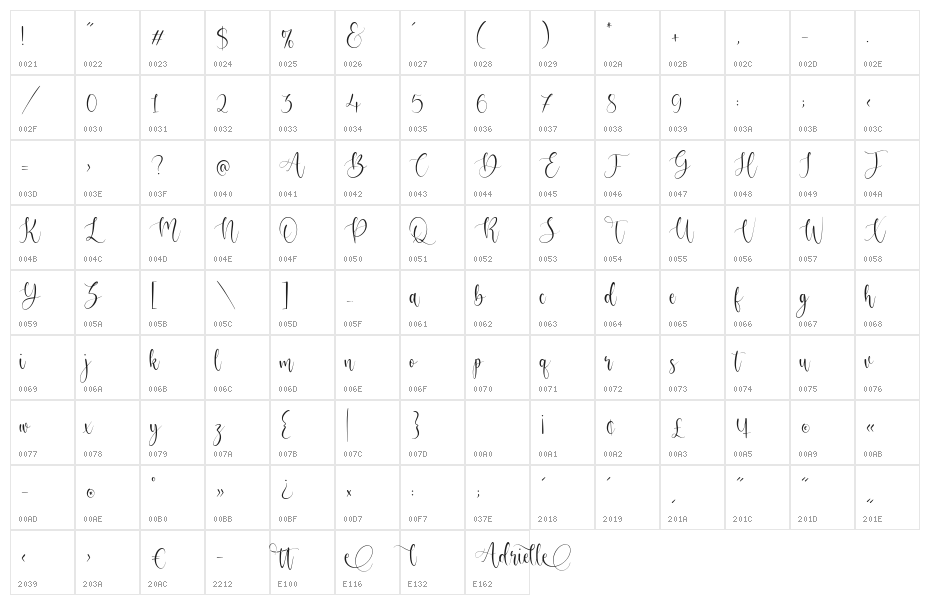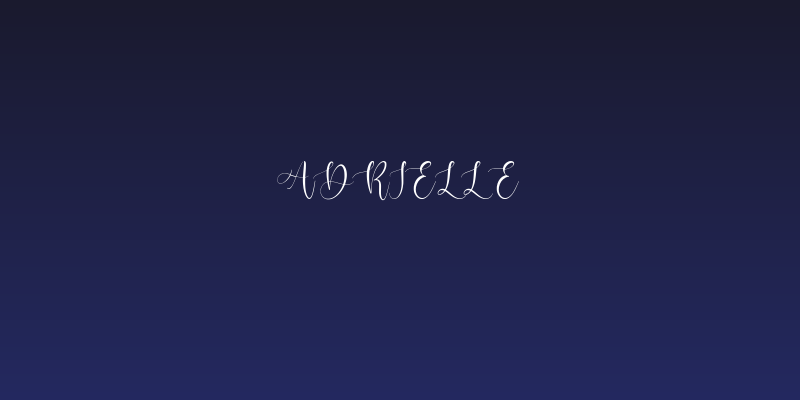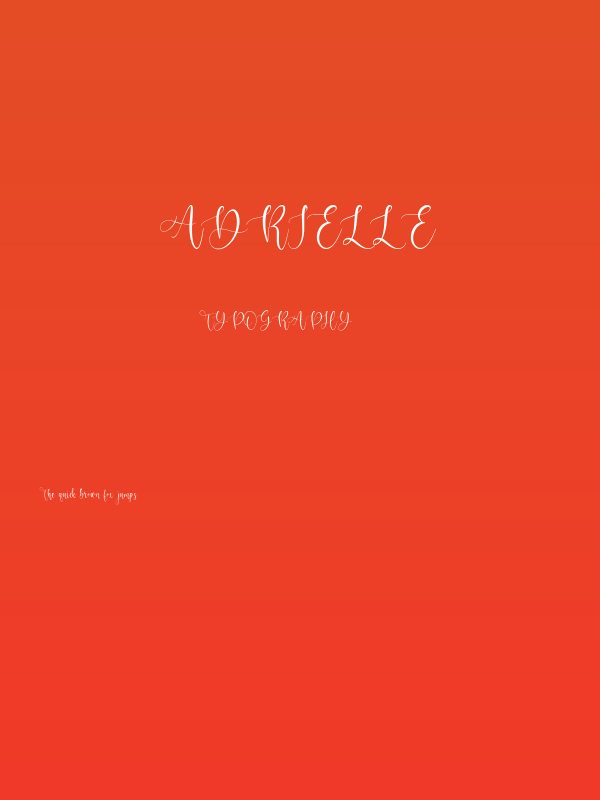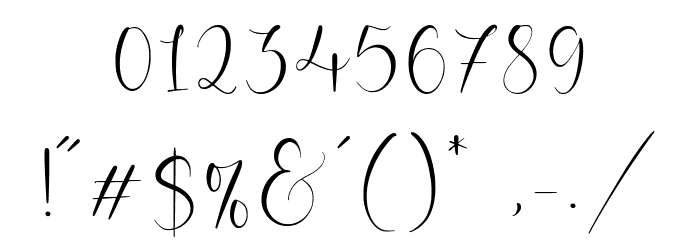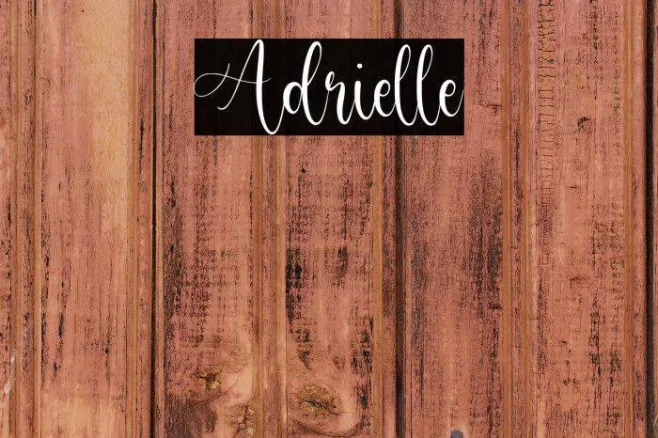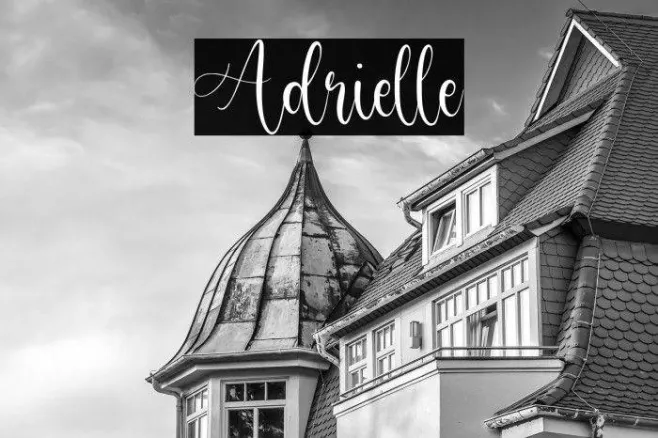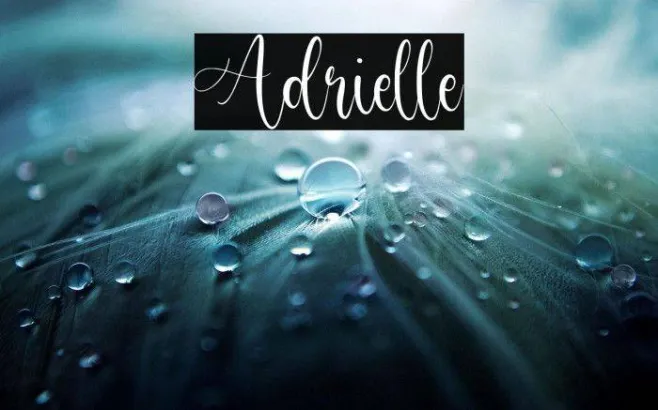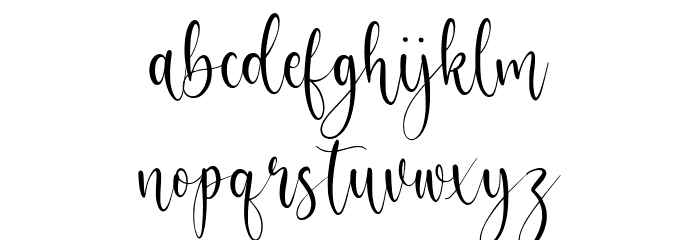
Adrielle Font
Adrielle Description
This font exudes elegance and sophistication with its flowing, cursive style. The uppercase letters are characterized by their intricate loops and flourishes, giving a sense of fluidity and grace. The lowercase letters maintain a consistent style, with smooth curves and delicate strokes that enhance readability while retaining a decorative flair. The numerals are designed to match the overall aesthetic, featuring similar curves and a balanced structure. Special characters are thoughtfully integrated, maintaining the font's cohesive look. This font is perfect for projects that require a touch of elegance and personalization.
| Proposed Projects | Ideal for wedding invitations, greeting cards, branding, and elegant logos. |